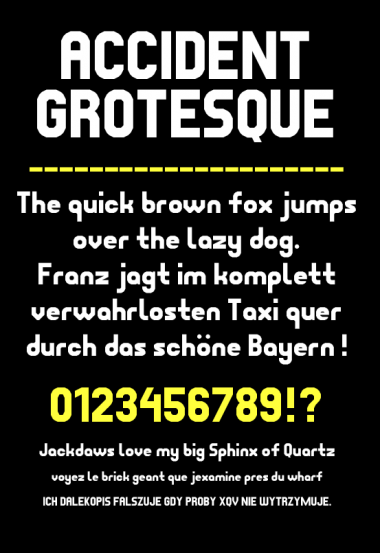
this is a very cool thing to do, but i think some of the characters are a little too wide.
i'm sure that "l" would work fine it it's lower bow would be cut at it's half width. same for "j".
the "t" could need a cut of one or a half brick on it's left side...
also, i think "r" is a little too long on the right, the result in "empty" room in it's typeface, same for "s" but not as strong as in "r".
Please don't get this as an overload of critism, but this could just be PERFECT, man :)
Without question this is great work, and the upper case is FLAWLESS, baby!
Kix: Thanks a lot, you´re absolutely right about it! The first thing I did after reading your comment was reworking the whole font. Hope it´s better now;-)